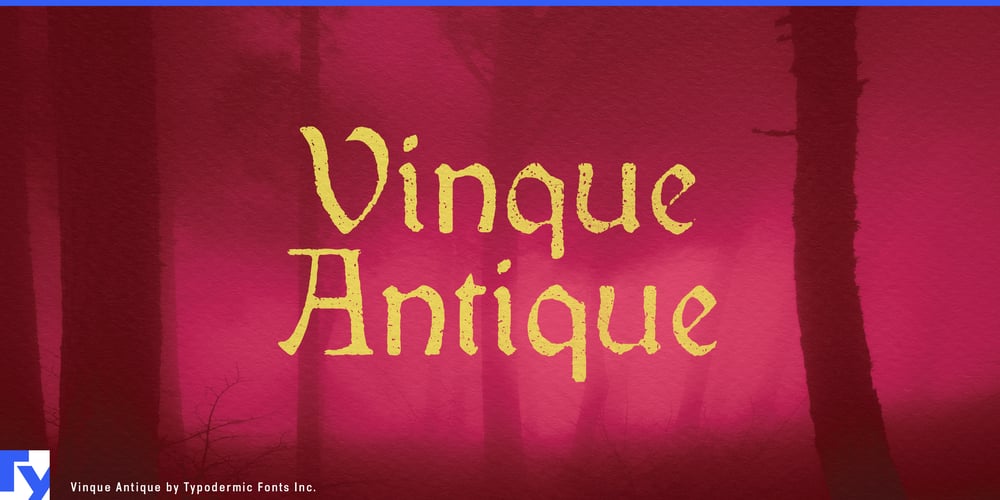
Vinque Antique Font Family was designed by Ray Larabie and published by Typodermic. Vinque Antique contains 6 styles and family package options. Harken, ye designers and scribes of the digital realm! Behold Vinque Antique, a typeface that doth weave the very essence of medieval craftsmanship into the tapestry of modern design. ‘Tis not mere lettering, but a portal to an age of illuminated manuscripts and stone-carved wisdom.Forged in the fires of nineteenth-century reverence for olde worlde artistry, Vinque Antique stands as a testament to the enduring allure of hand-hewn beauty. Each character bears the mark of a master craftsman’s touch, yet yields not to the obscurity that oft plagues ancient scripts. Nay, these letters sing with clarity, as if freshly penned by a steady-handed monk. But lo! Vinque Antique harbors secrets most wondrous. Within its digital codex lie OpenType enchantments—fractions that divide with the precision of an apothecary’s scales, f-ligatures that entwine like lovers in a tapestry, and old-style numerals that stand proudly as castle towers against the sky. These are not mere ornaments, but the very lifeblood of authenticity coursing through each line of text.Hark! The true magic of Vinque Antique reveals itself in its three-fold nature. Like the faces of the Holy Trinity, three texture variations dance and weave, shuffling automatically in the realm of OpenType-savvy programs. This sorcery breathes life into your parchment, creating a rhythm as natural as the fall of autumn leaves. Yet, for those who seek the purity of unadorned letters, a mere toggle of ligatures shall reveal clean lines, as if freshly carved from virgin stone. From the whisper-light strokes of its lightest weight to the bold declarations of its heaviest, Vinque Antique offers three weights and their italic brethren. ‘Tis a family as diverse as the nobles and peasants that once populated medieval society, each with a role to play in your grand design.Vinque Antique speaks not in one tongue, but in a multitude! From the rolling hills of Latin Europe to the steppes of Cyrillic lands, from the lush valleys of Vietnam to the isles of Greece, this typeface bears your message across kingdoms and continents. ‘Tis a lingua franca for the modern age, wrapped in the cloak of antiquity. But hark! Should you desire a companion unburdened by the patina of age, seek ye the clean-faced Vinque, Antique’s unblemished twin. Together, they stand as sentinels of style, bridging the chasm between what was and what shall be.So, brave designer, will you answer the call? Will you take up Vinque Antique and let its timeless beauty elevate your creations? Whether you seek to craft a seal worthy of a king’s proclamation or to adorn the pages of a tome yet unwritten, Vinque Antique stands ready to serve.